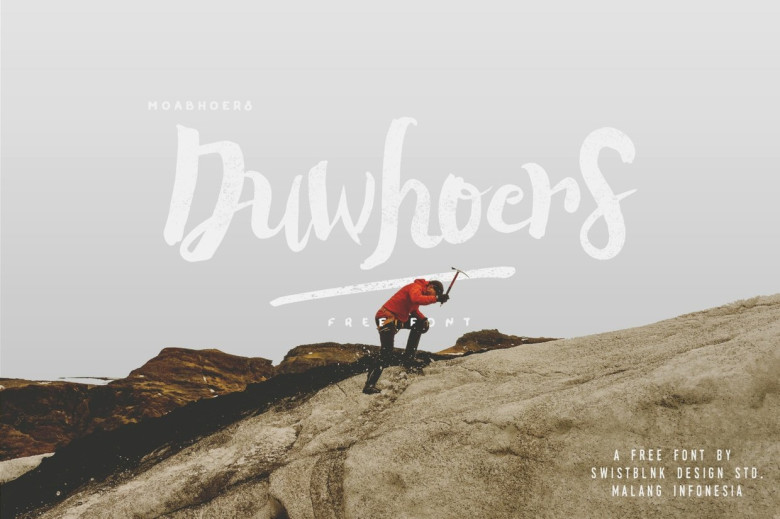
Duwhoers Brush Font
Duwhoers is Modern Brush Font with Vintage Handmade feel. this font is free for Personal and Commercial use. but any donation are very appreciated.